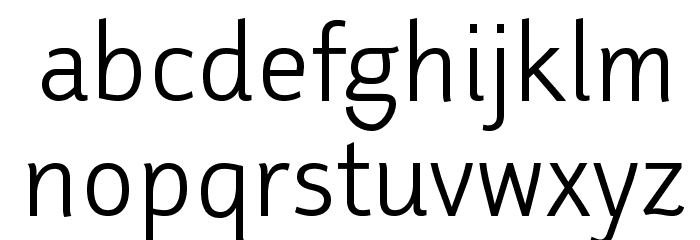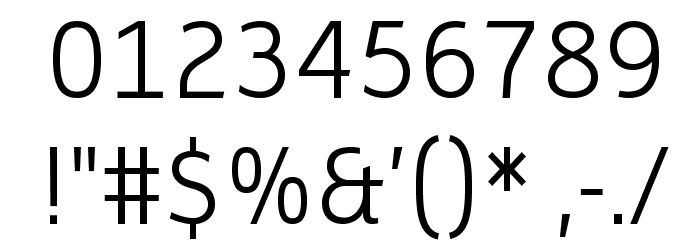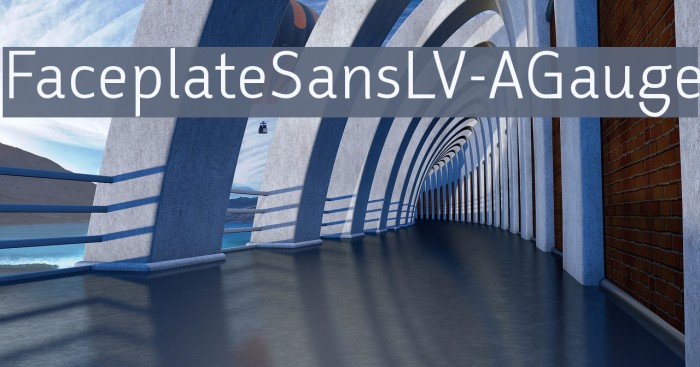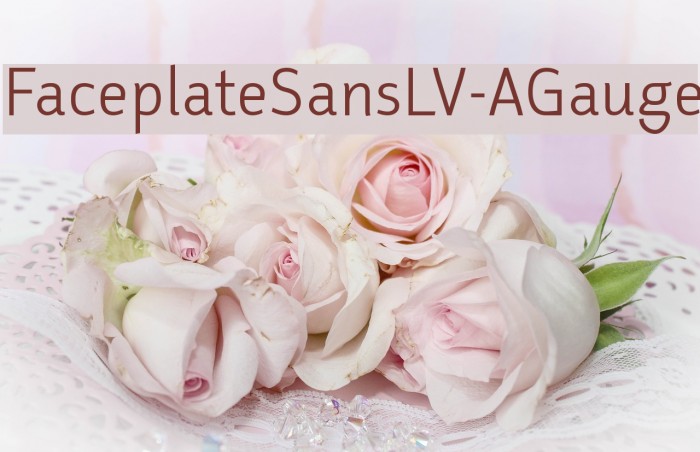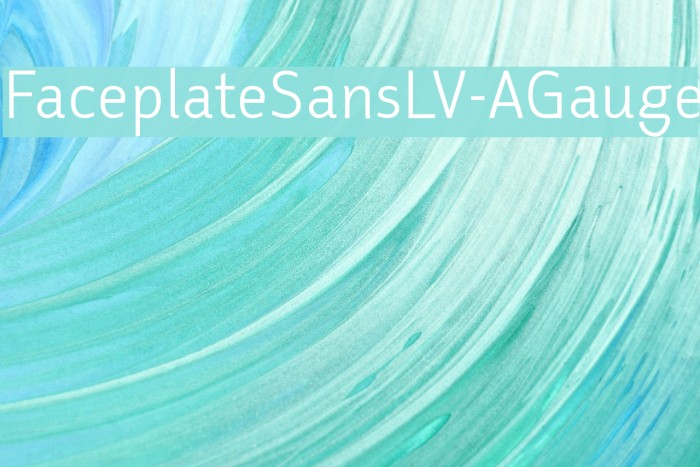
FaceplateSansLV-AGauge Font
This typeface features a clean and modern sans-serif design, characterized by its geometric shapes and uniform stroke widths. The uppercase letters are tall and slightly condensed, providing a sleek and professional appearance. The lowercase letters maintain a consistent height, contributing to a harmonious and balanced look. The numerals are clear and legible, making them suitable for various applications. Special characters are well-integrated, ensuring versatility in design projects. Overall, this font exudes a contemporary and minimalist aesthetic, ideal for digital and print media.
A modern sans-serif font with geometric shapes and uniform strokes.